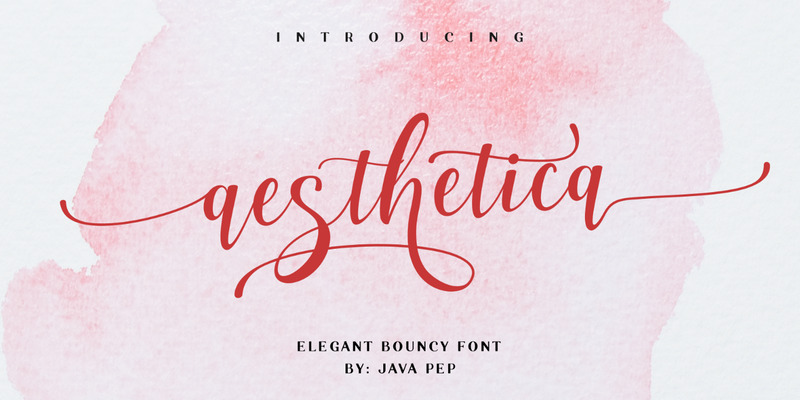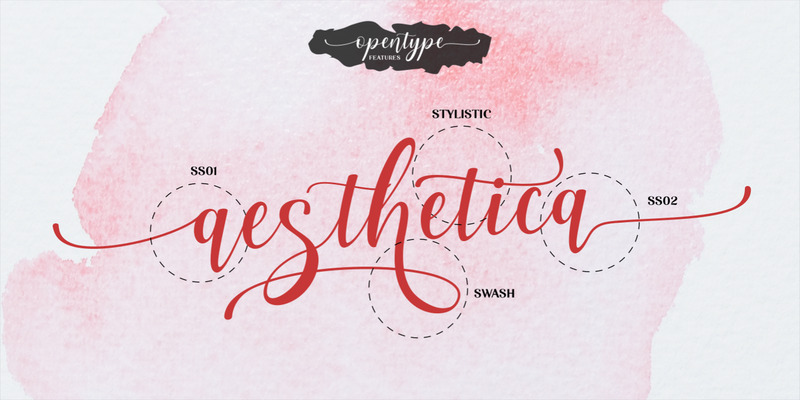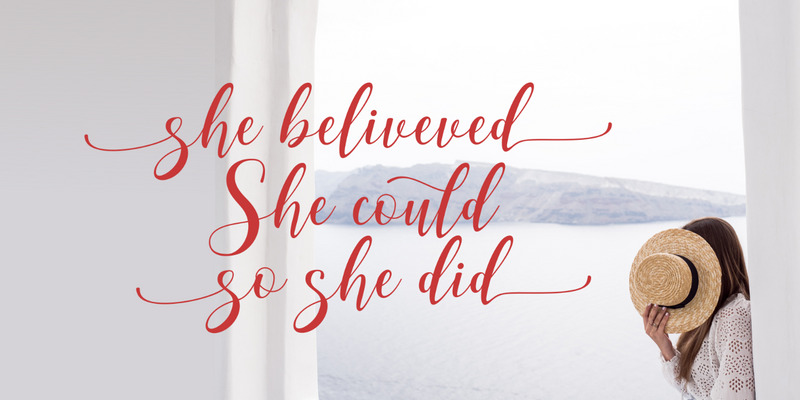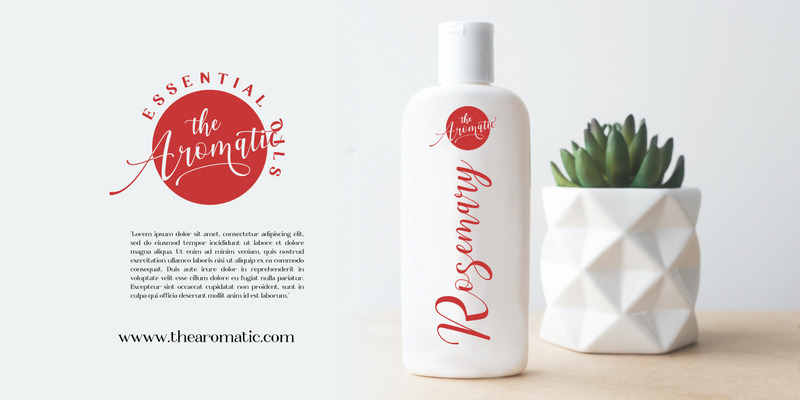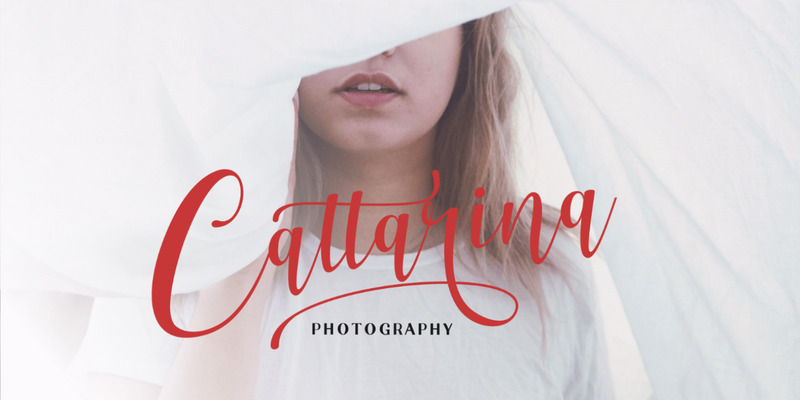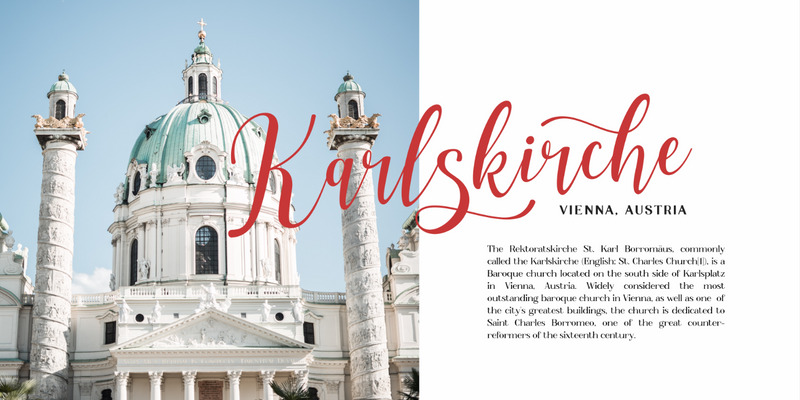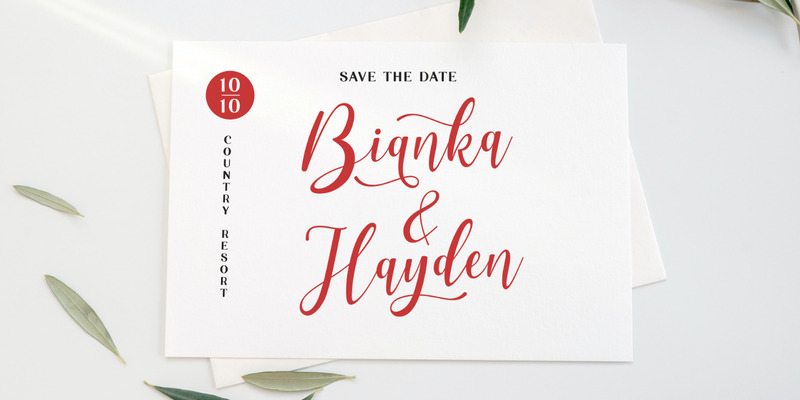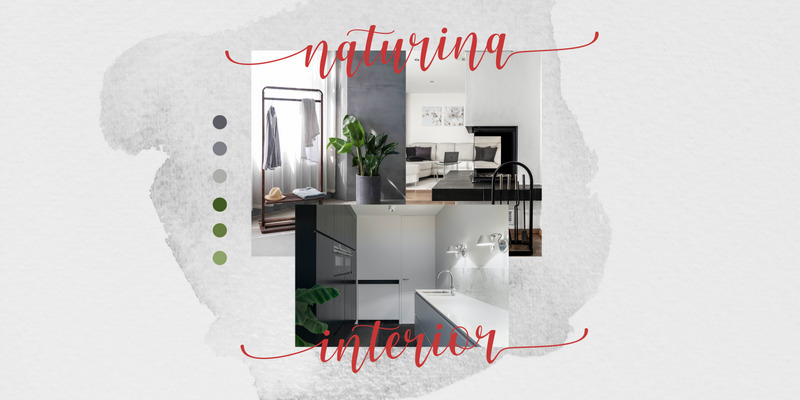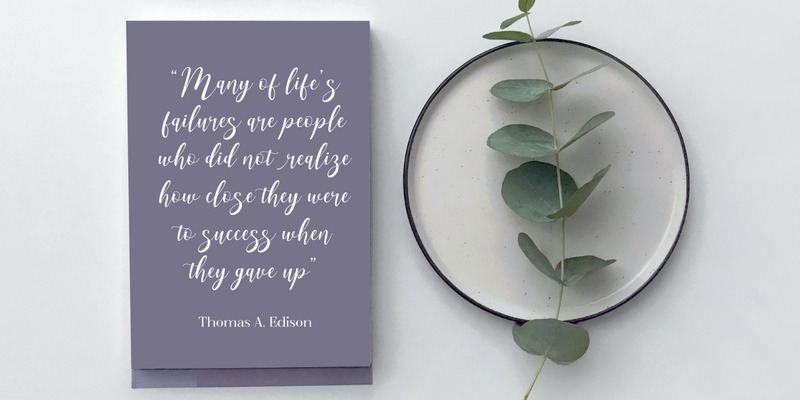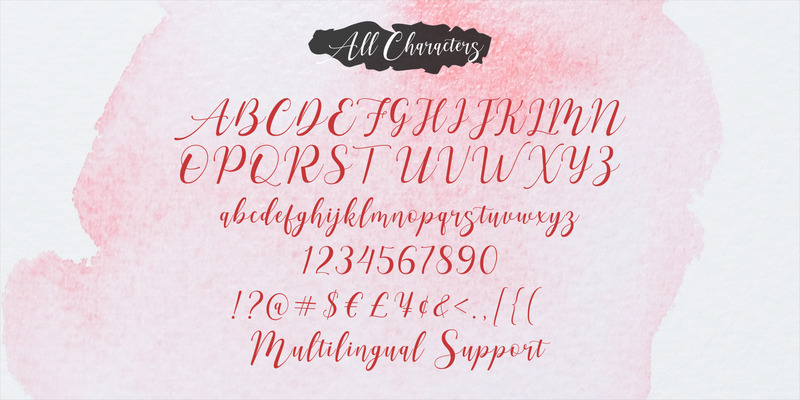
aesthetica - elegant bouncy font
Introducing an elegant bouncy font that every strike the shape brings the vibes of beauty, pretty, elegant, and aesthetic. Aesthetica font comes with several of alternates, so you can switch on for the swashes, stylistic alternate, initial and terminal form (SS01-SS02). This font is perfect for logo font, branding, greeting card, cut files for quote, silhouette font design, monogram font, and etc.
• Multilingual support for 17 languages